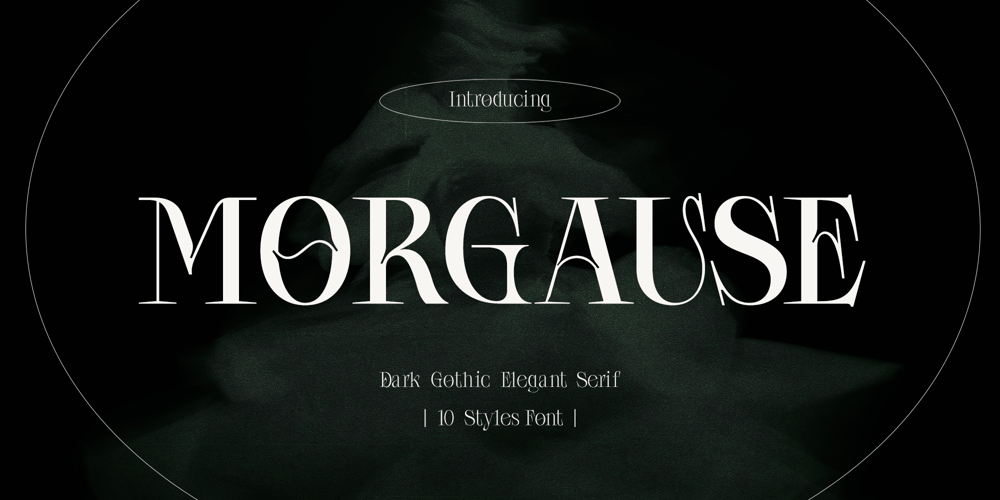
Morgause
Morgause font
Morgause Font Family was designed by Dede Kurniawan and published by Creatifont Studio. Morgause contains 10 styles and family package options. Morgause is a gothic-inspired serif font that merges sharp, pointed serifs with a touch of elegance. Its design draws from vintage European gothic styles, offering a balance of mystique and sophistication. Morgause is available in a wide range of styles from light to bold, with italic options for each weight, making it versatile for both dramatic and refined design needs. Ideal for creating an air of dark, mystical energy while maintaining a classy aesthetic.A SUMMARY OF WHAT’S INCLUDED: Standard Character A-Z, a-z, 0-9, Punctuation & symbols Light, Regular, Medium, Semi Bold, and Bold Styles and Italic option on each weight Include Alternates and Ligatures Multilingual Support Works on PC & Mac Simple installation Accessible in Adobe Creative Suite (Ai, Ps, Id, etc.) even work on Microsoft Word. PUA Encoded Characters – Fully accessible without additional design software. ————————————————-🌟If you come across any issues or notice anything we might have overlooked while using this product, please feel free to reach out to us. We greatly value your feedback as it helps us enhance and refine our products. Thank you!